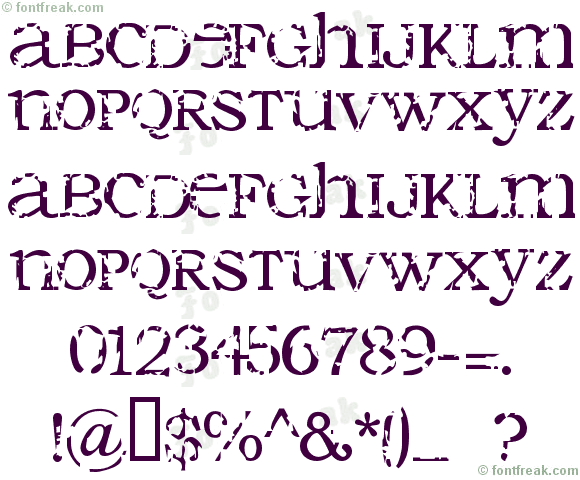
Seraphim
The Seraphim font, crafted by Utopiafonts in 1999, is a striking serif typeface that combines elegance with a touch of whimsy. Its distinctive visual characteristics include a moderate stroke weight and a delightful contrast between thick and thin lines, which creates a sense of dynamism and sophistication. The unique decorative elements, including slight serifs, offer a playful yet refined appearance, making it an ideal choice for various design projects. The spacing is well-balanced, ensuring readability while maintaining an artistic flair.
This versatile font is perfect for a range of applications. It shines in wedding invitations, where its graceful letterforms can evoke romance and elegance. Additionally, the Seraphim font is an excellent choice for movie posters, lending a dramatic flair that captures attention. Restaurant menus can benefit from its charming aesthetic, drawing in diners with its inviting appearance. Content creators and graphic designers will also find the font suitable for branding projects, as it conveys personality and style.
The target audience for the Seraphim font includes graphic designers, small business owners, and content creators who seek a unique typeface to enhance their visual communication. Whether you are designing for print or digital platforms, this font adds a distinctive touch that can elevate any project.
In a world filled with generic typefaces, the Seraphim font stands out for its blend of artistry and usability. Its free availability as a Seraphim font free download allows creatives to explore its potential without constraints. This font not only enhances visual appeal but also embodies a character that can resonate with various themes and messages, making it an essential addition to any designer's toolkit.